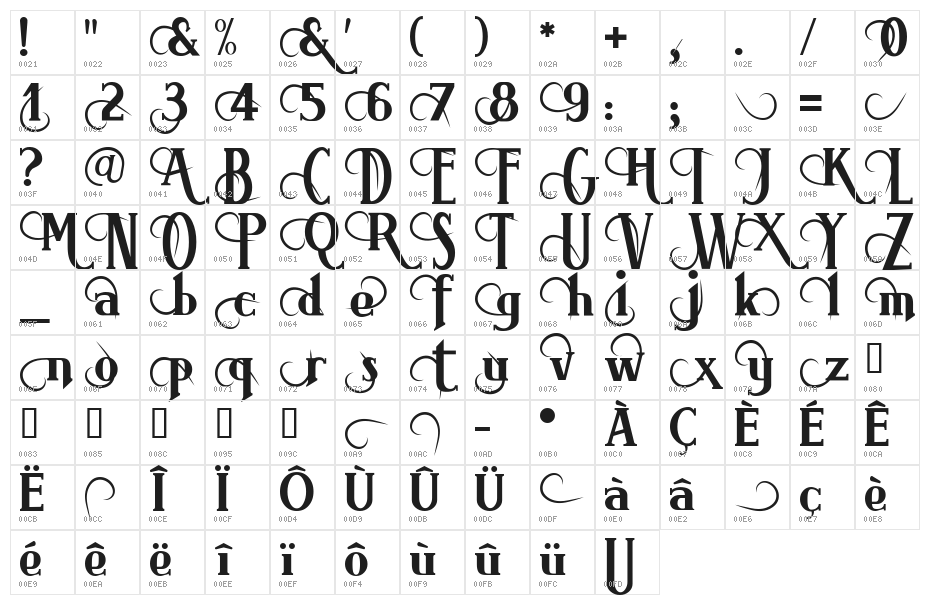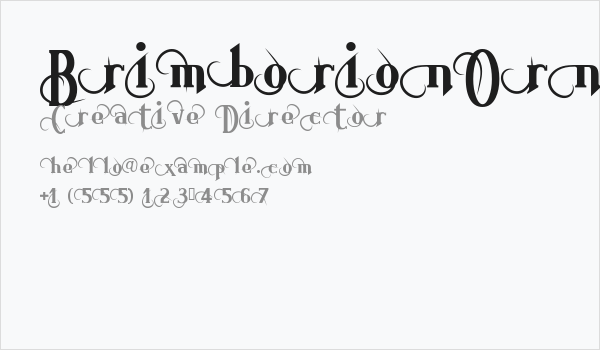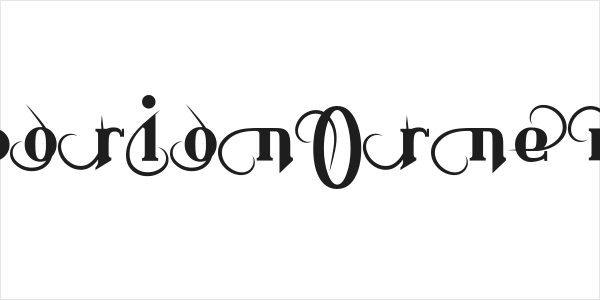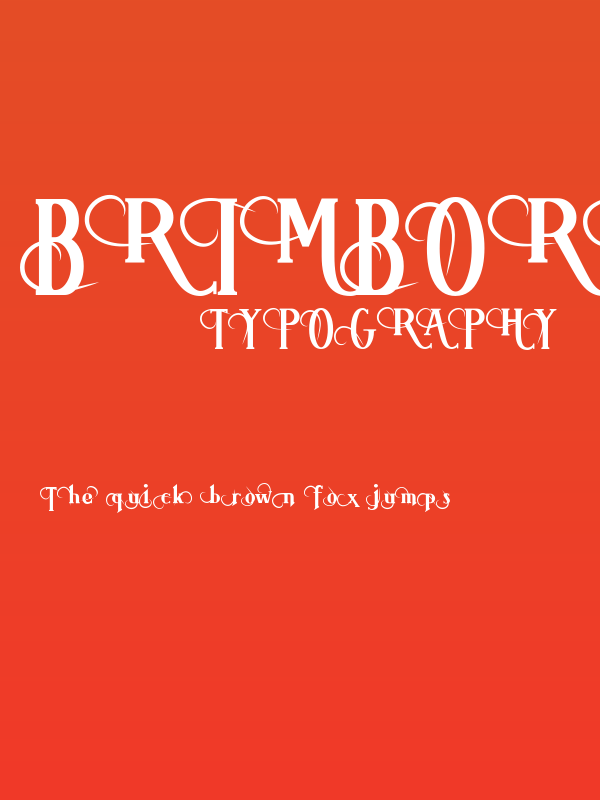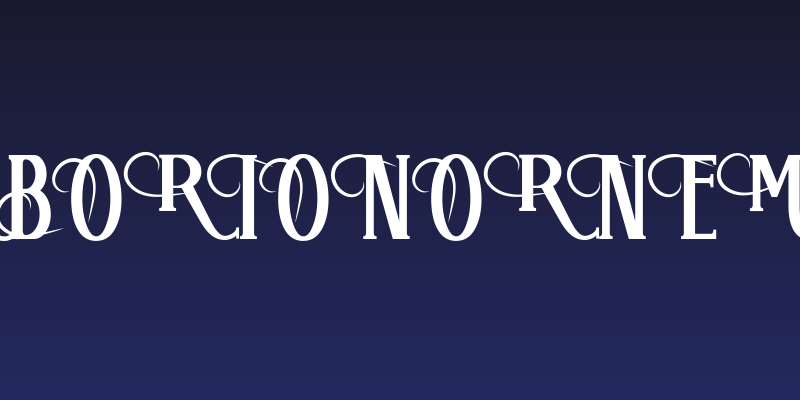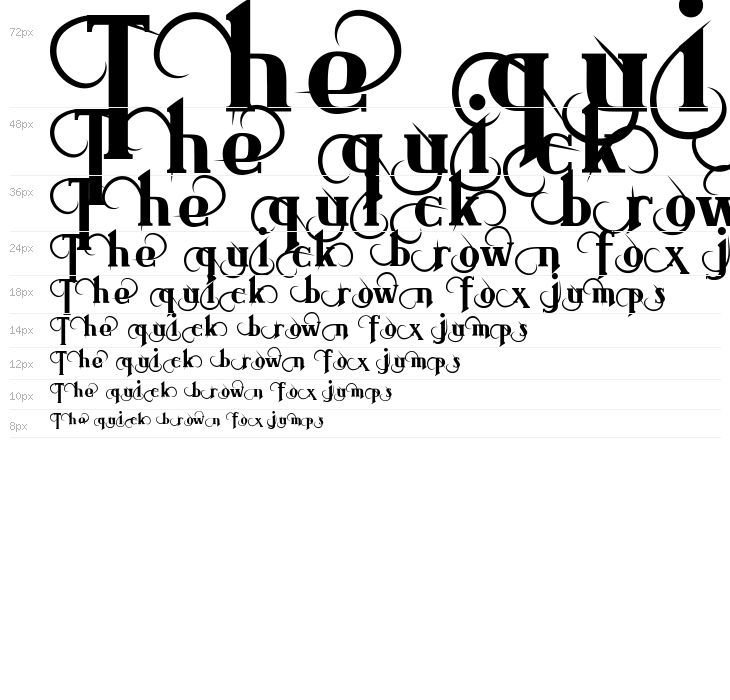
BrimborionOrnements Font
BrimborionOrnements Description
This font features an elaborate and decorative style, characterized by intricate swirls and flourishes that extend from the main strokes of each character. The uppercase letters are particularly ornate, with loops and curls that give them a whimsical and artistic appearance. The lowercase letters maintain a similar decorative flair, though they are slightly more restrained, allowing for better readability. The numerals and special characters also incorporate these embellishments, creating a cohesive and unified look across the entire character set. The overall design is reminiscent of vintage calligraphy, making it ideal for projects that require a touch of elegance and sophistication.
Overall StyleVintage
Use CaseLogos, Headlines, Invitations
Proposed ProjectsIdeal for wedding invitations, greeting cards, luxury branding, and artistic posters.